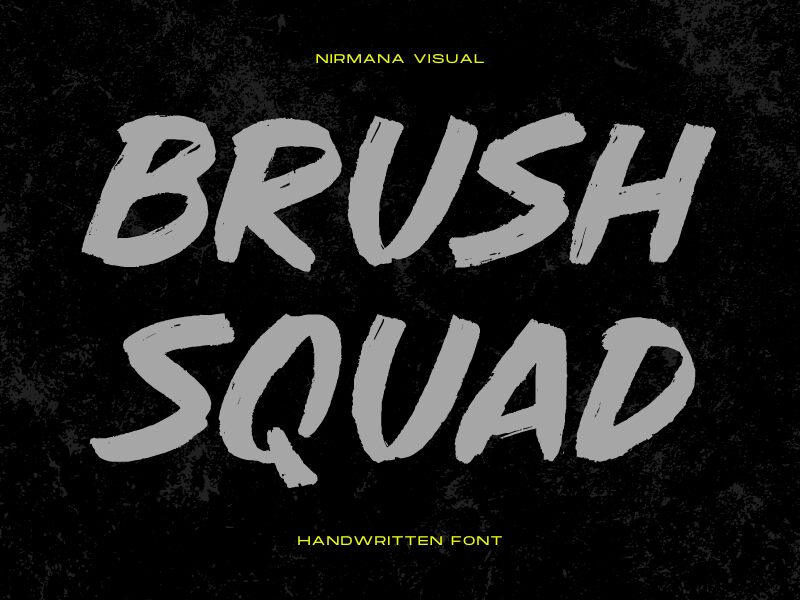
Are you looking to add a bold and expressive touch to your creative projects? Look no further than Brush Squad, a dynamic font designed by Nirmana Visual. With its unique brush style and bold weight, this font is perfect for making a statement in any design. Whether you're working on posters, logos, packaging, or social media graphics, Brush Squad offers versatility and impact.
The all caps feature of this font adds an extra layer of emphasis and makes it ideal for headlines and attention-grabbing text. Its hand-drawn appearance gives it a raw and authentic feel, perfect for adding personality to your designs.
From edgy urban designs to elegant and artistic compositions, the possibilities with Brush Squad are endless. Embrace the creative freedom this font offers and elevate your projects with its distinctive charm.